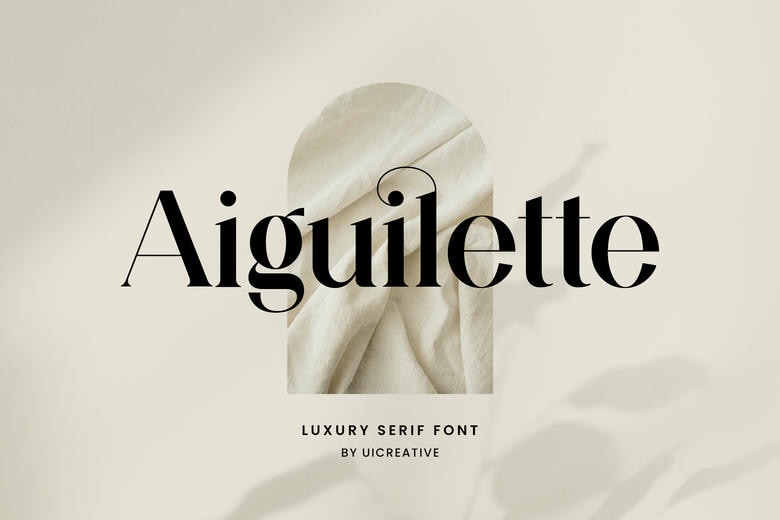
Aiguilette Font
Aiguilette is a modern serif font created by UICreative with a unique style, a light and high contrast font perfect for feminine logo signs, fashion heads, stationery, wedding, typography quotes, magazine or book covers, website headers, clothing, branding, packaging design, and more. Also, fashion-related branding or editorial design displays both masculine and feminine qualities.
Aiguilette Serif Font